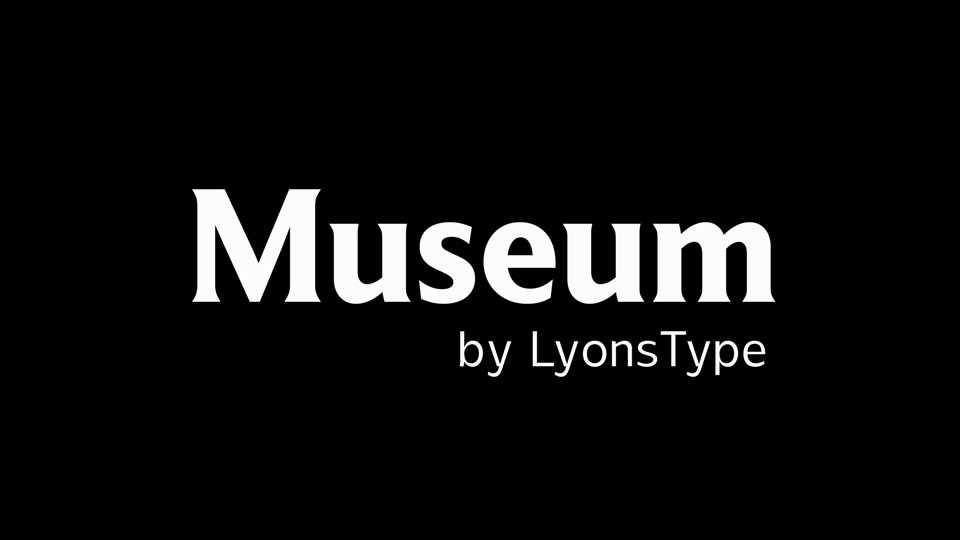
Download LT Museum font, a nostalgic flare serif typeface that reflects on the spirit of museums and exudes a sense of elegance and sophistication, reminiscent of the timeless artifacts and treasures.
Designer: LyonsType